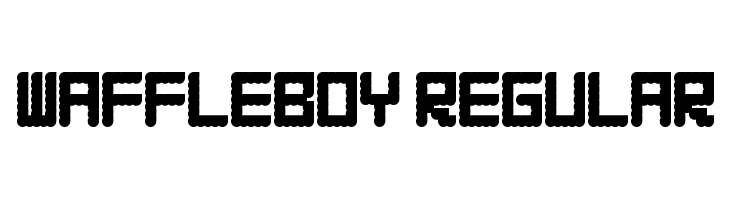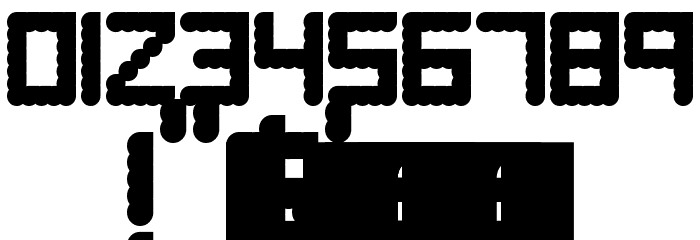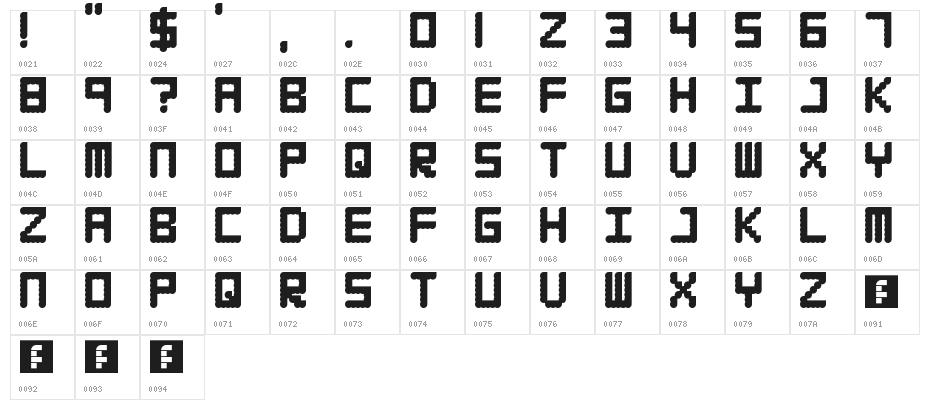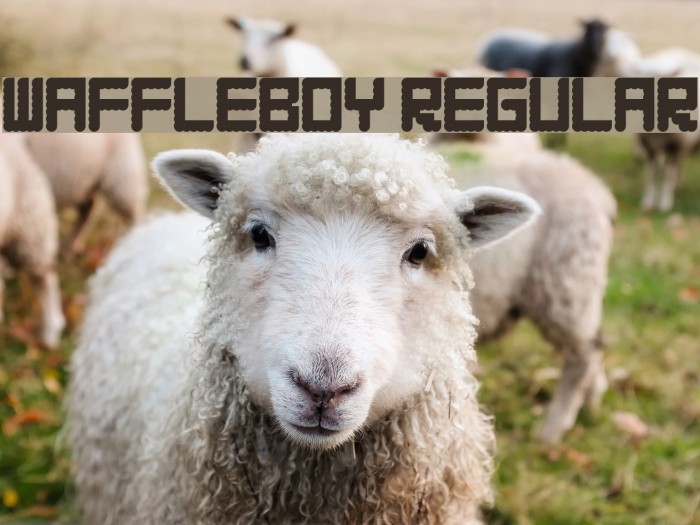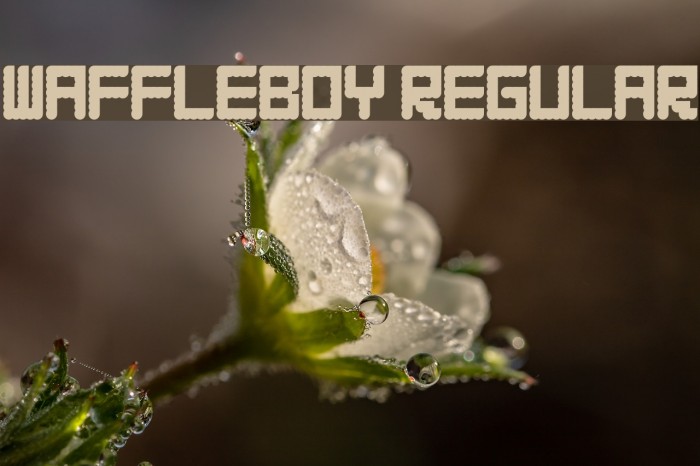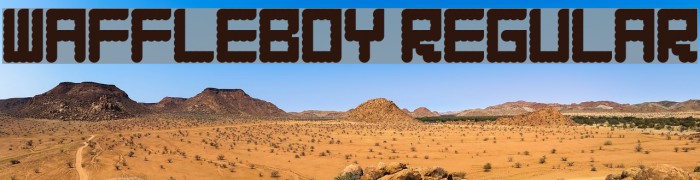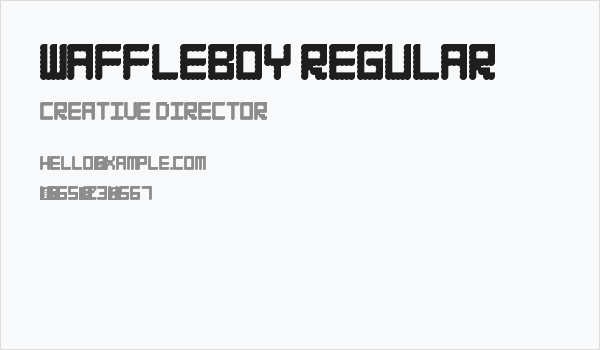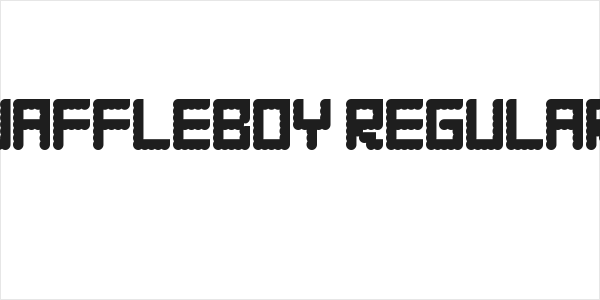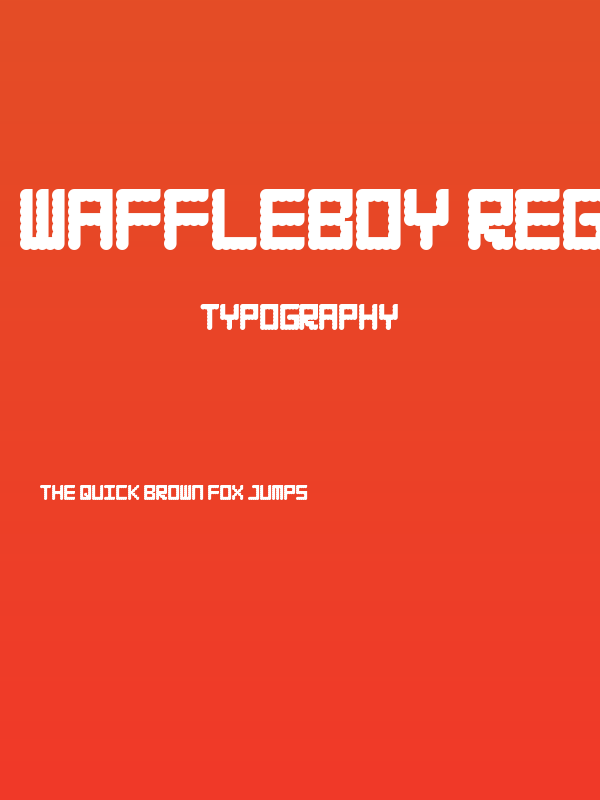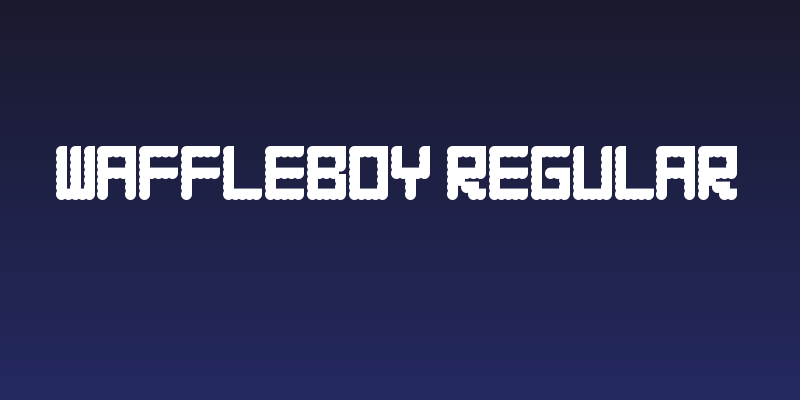
This font features a playful and unique design, characterized by its bold, rounded shapes that resemble a series of connected dots or bubbles. Each character is constructed with a consistent thickness, creating a uniform appearance across the alphabet. The style is reminiscent of retro or vintage aesthetics, making it ideal for projects that require a fun and eye-catching look. The font includes both uppercase and lowercase letters, numbers, and a selection of special characters, all maintaining the same bubbly and cohesive design. Its distinct style is perfect for creative projects that aim to stand out.
| Overall Style | Retro, Fun, Playful |
| Proposed Projects | Ideal for children's books, playful branding, party invitations, and retro-themed designs. |